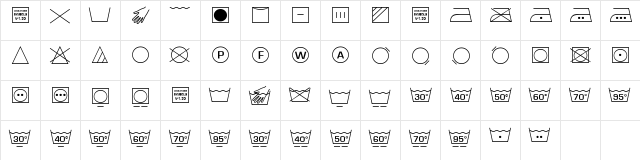
Wash Care Symbols M54 Regular Font Preview
Wash Care Symbols M54 Regular
Wash Care Symbols M54 Regular Font Details
| Foundry | M54 (justme54s) |
| Designer | Mohammed Rahman |
Design Context for Wash Care Symbols M54 Typeface
Wash Care Symbols M54 takes a measured approach to typography — its balanced proportions and neutral character make it a reliable workhorse for both digital and print work.